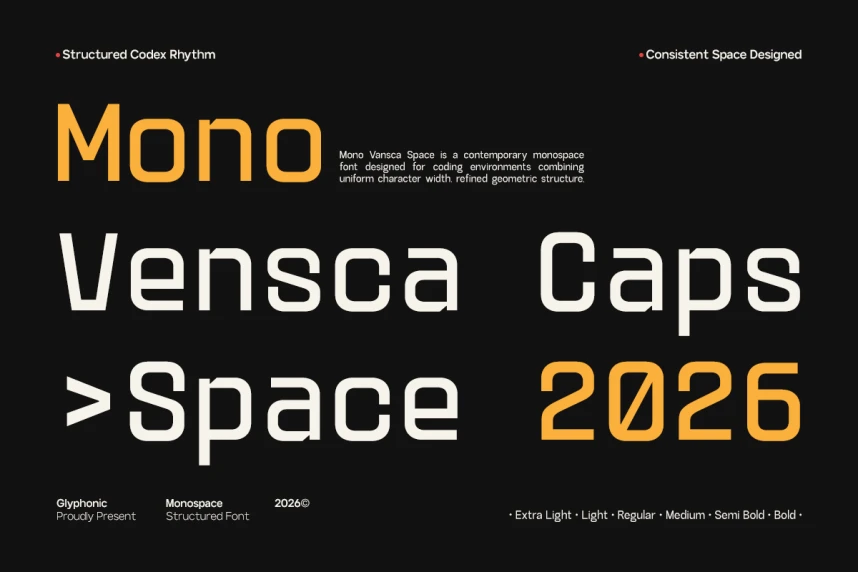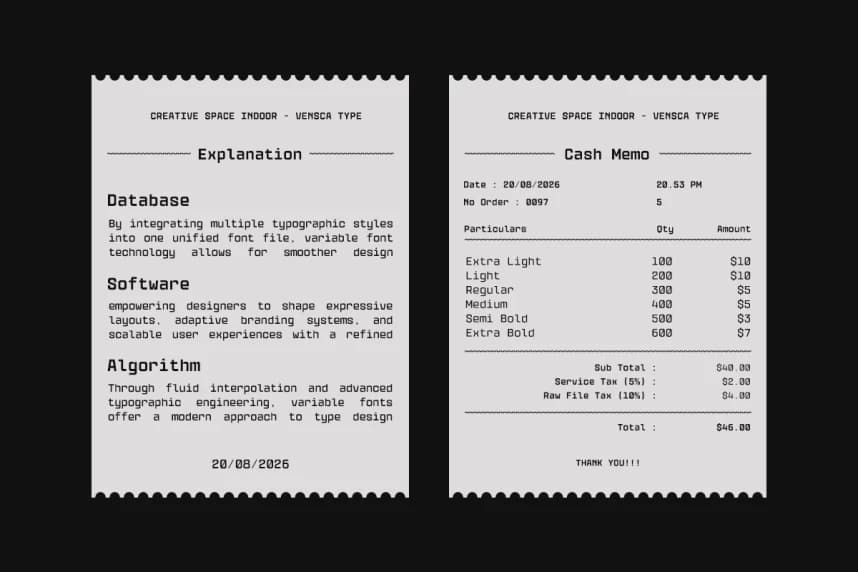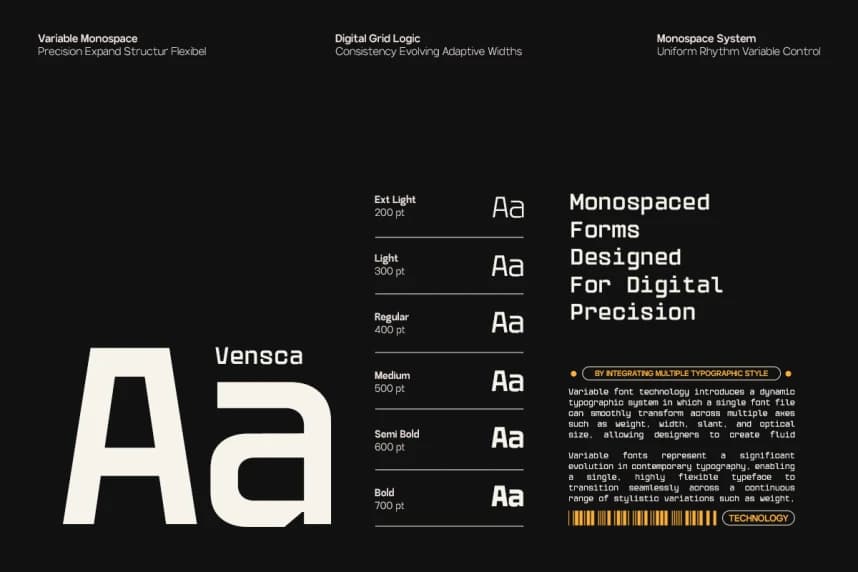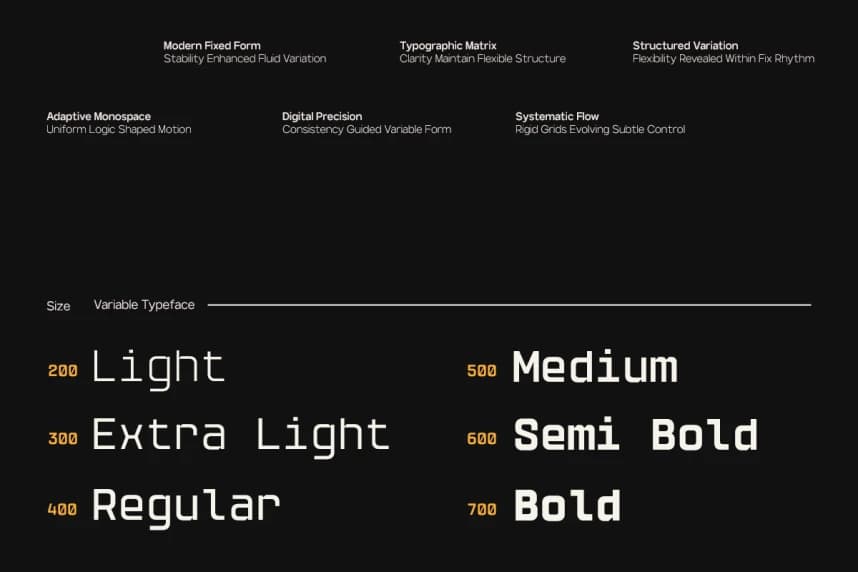
GC Vensca Mono Font
GC Vensca Mono Font – Modern Monospace is a contemporary monospaced typeface designed with clean structure and modern precision. Built on a consistent grid system and refined proportions, Vensca Mono delivers a clear, technical, and confident typographic voice suited for modern visual communication.